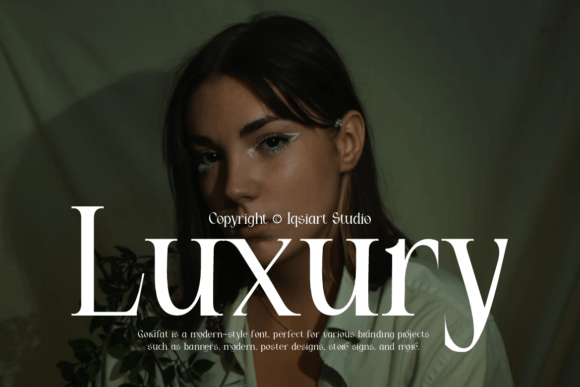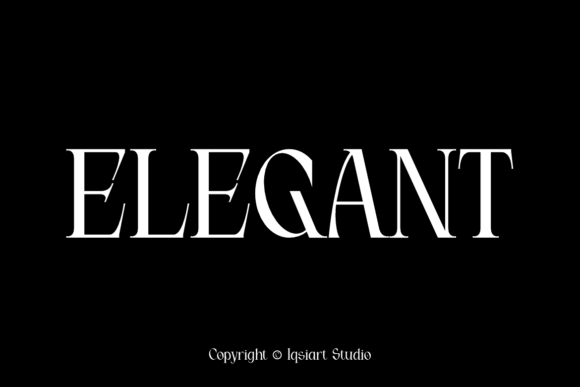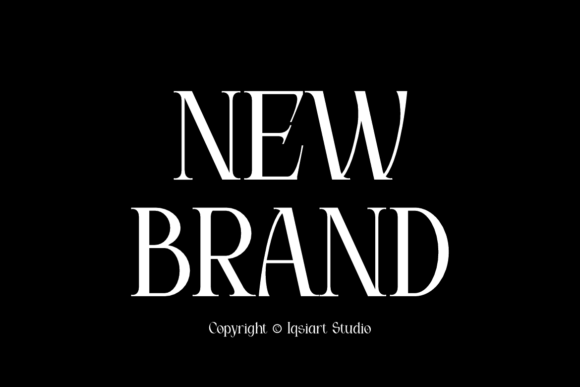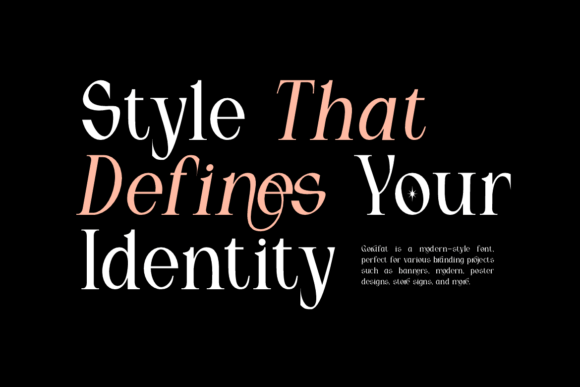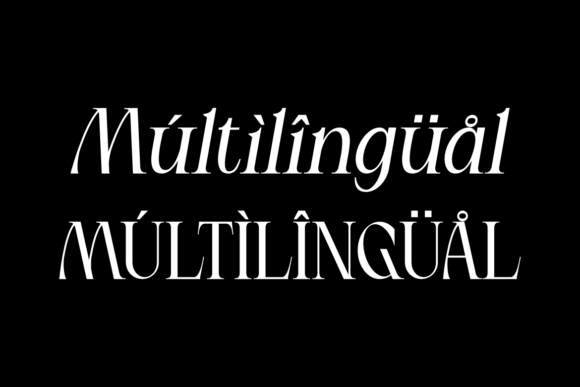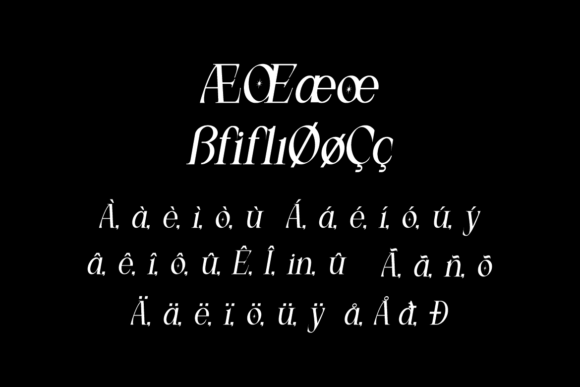
Unveiling Gorufat Font: Elevate Your Designs with Celestial Elegance
Are you ready to infuse your creative projects with a touch of heavenly sophistication? Look no further than Gorufat, a stunning premium editorial display serif font that embodies the perfect blend of modern elegance and celestial mystery. This exquisite typeface is designed to transport your designs to new heights, making it an ideal choice for crafters and designers seeking to create breathtaking visual experiences.
The Distinctive Features of Gorufat Font
Gorufat’s beauty lies in its high-contrast structure, which masterfully combines thin horizontal serifs with sweeping, voluptuous curves. This unique blend of classic and contemporary elements results in a truly breathtaking typeface that exudes luxury, sophistication, and refinement. Whether you’re working on high-fashion boutique logos, premium cosmetics packaging, or fine wedding stationery, Gorufat’s distinctive features are sure to leave a lasting impression.
A Versatile Family Package: Regular and Italic Weights
One of the standout features of Gorufat is its versatility. This exceptional font arrives as a comprehensive family package, complete with both Regular and Italic weights. This allows designers to experiment with different styles and tones, ensuring that their creative vision is always brought to life with precision and elegance. The Regular weight is perfect for body text and headlines, while the Italic weight adds a touch of dynamism and flair, ideal for emphasizing specific words or phrases.
Ideal Applications for Gorufat Font
Gorufat’s versatility makes it suitable for a wide range of applications, including:
- High-fashion boutique logos: Elevate your brand with a sophisticated and stylish logo that exudes luxury and refinement.
- Premium cosmetics packaging: Make a lasting impression with packaging that showcases Gorufat’s elegant, high-end aesthetic.
- Lifestyle magazine layouts: Bring a touch of sophistication to your magazine spreads with Gorufat’s beautiful, high-contrast structure.
- Luxury jewelry branding: Showcase your exquisite jewelry pieces with a typeface that embodies elegance and refinement.
- Fine wedding stationery: Make your wedding stationery truly unforgettable with Gorufat’s celestial elegance and modern sophistication.
Why Choose Gorufat Font?
With Gorufat, you can:
- Elevate your designs: Infuse your projects with a touch of celestial elegance and modern sophistication.
- Stand out from the crowd: Gorufat’s unique high-contrast structure ensures that your designs will leave a lasting impression.
- Experience versatility: With both Regular and Italic weights, Gorufat offers endless possibilities for creative experimentation.
In conclusion, Gorufat is a truly exceptional font that offers designers and crafters a unique opportunity to elevate their creative projects with celestial elegance and modern sophistication. With its breathtaking high-contrast structure, versatile family package, and wide range of applications, Gorufat is the perfect choice for anyone seeking to create stunning visual experiences. Immerse your designs in the aura of Gorufat and discover a world of limitless creative possibilities.